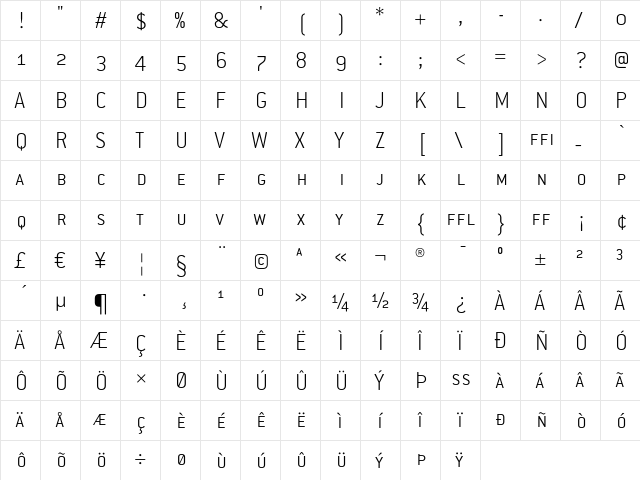
ConduitSCITC ExtraLight
Design Context for ConduitSCITC Typeface
ConduitSCITC offers clean, dependable letterforms without strong stylistic allegiance, making it a practical choice for designers who need flexibility. Its slender proportions lend an understated elegance to any composition. Its narrow stance lets it pack a punch even in space-constrained designs.